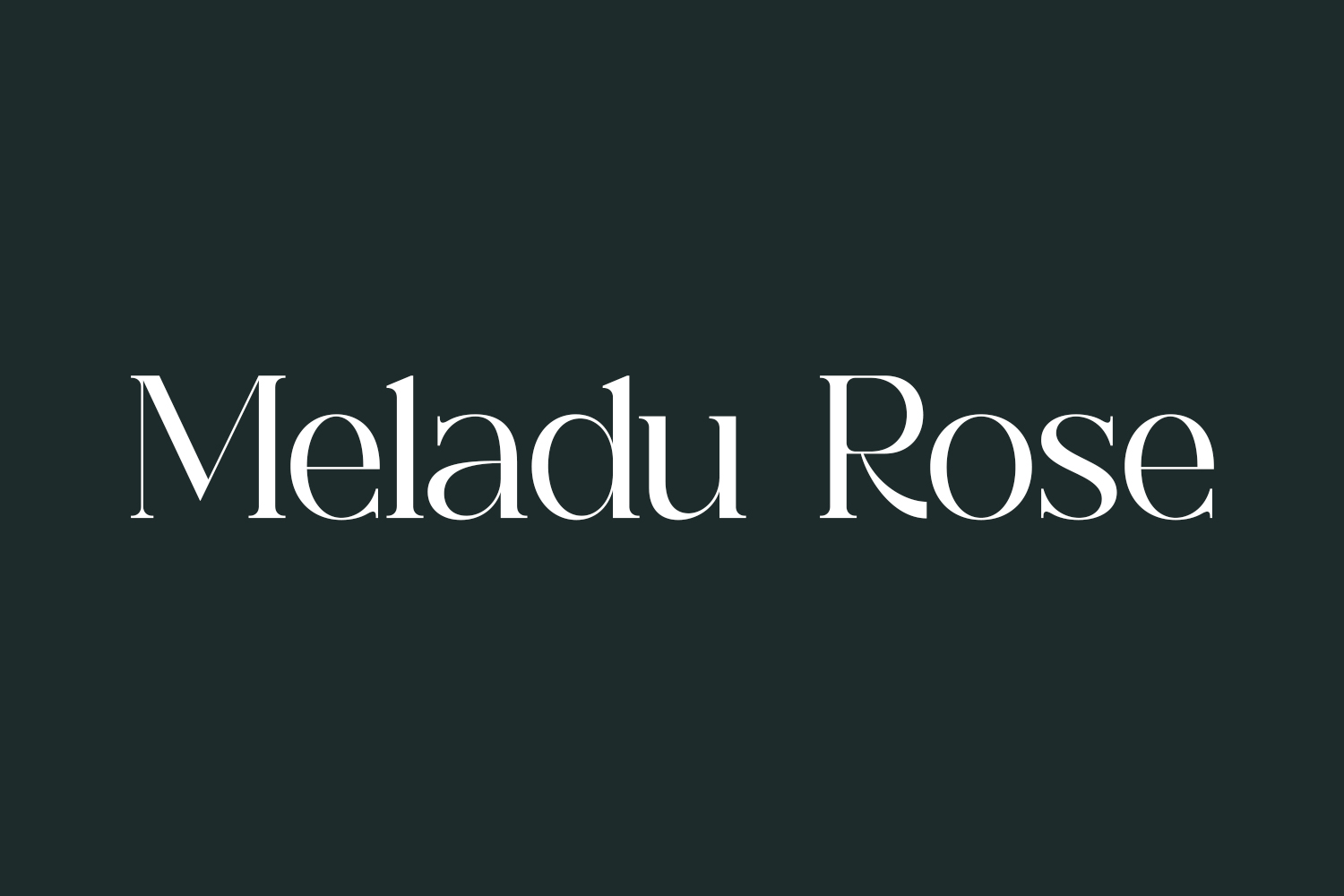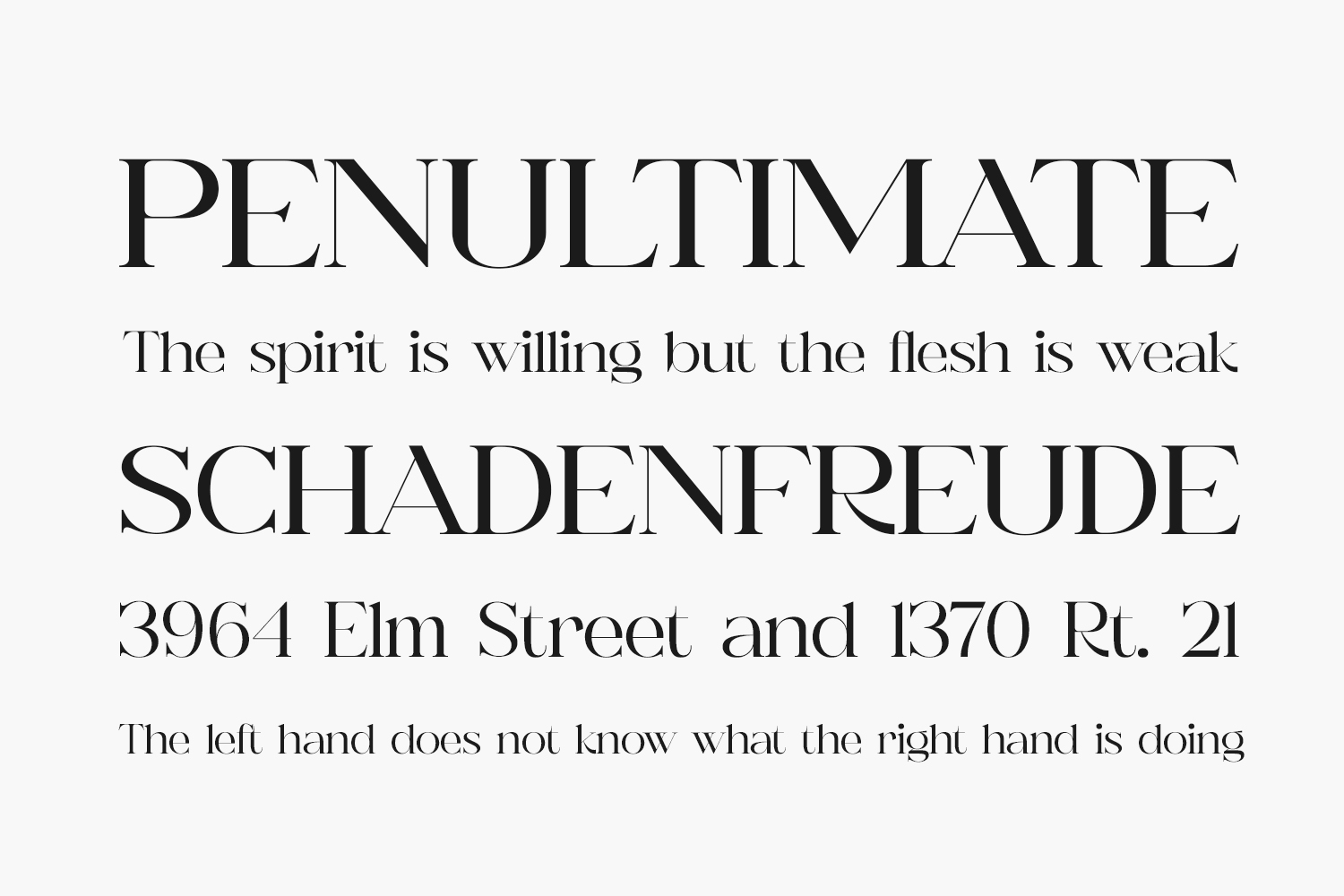
Meladu Rose Free Font embodies a blend of modernity and timeless elegance, presenting a distinct serif font with a contemporary aesthetic. It’s the ideal choice for crafting luxurious and sophisticated logos, captivating book or movie titles, chic fashion brands, captivating magazines, stylish apparel, artistic lettering, inspiring quotes, and a multitude of other design endeavors. Meladu Rose Free Font is free for personal use only. Please purchase the full version for commercial use.